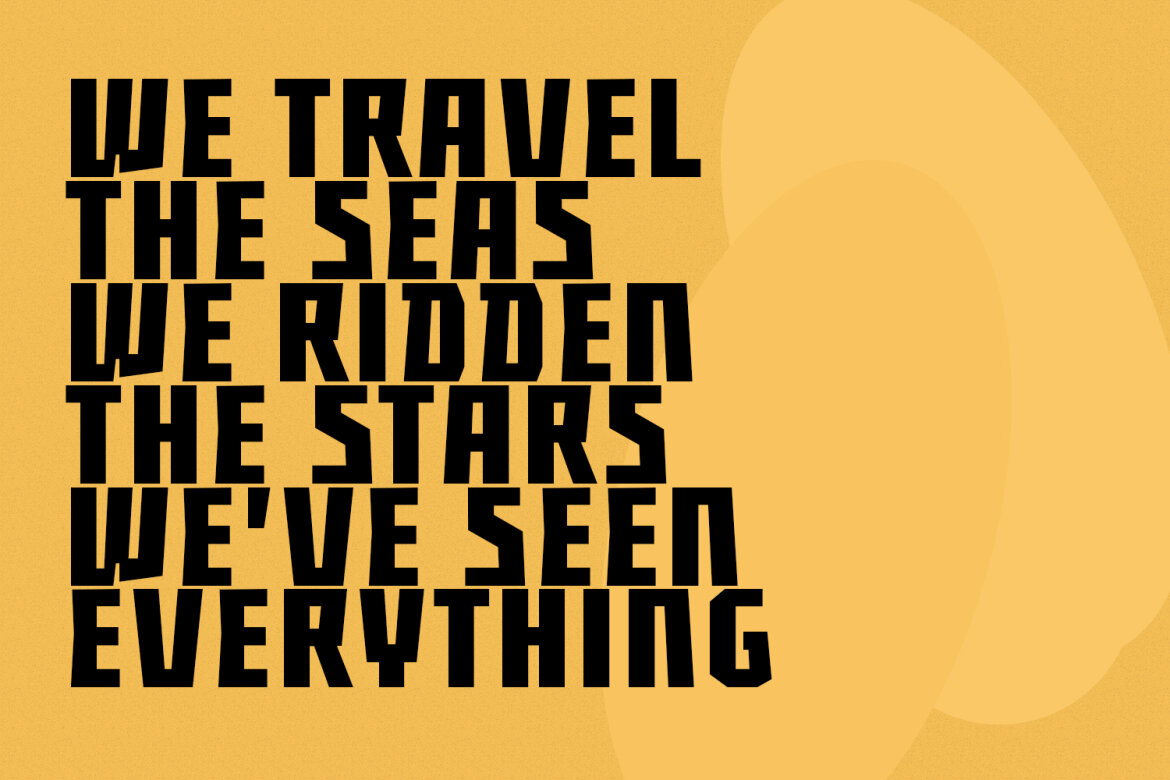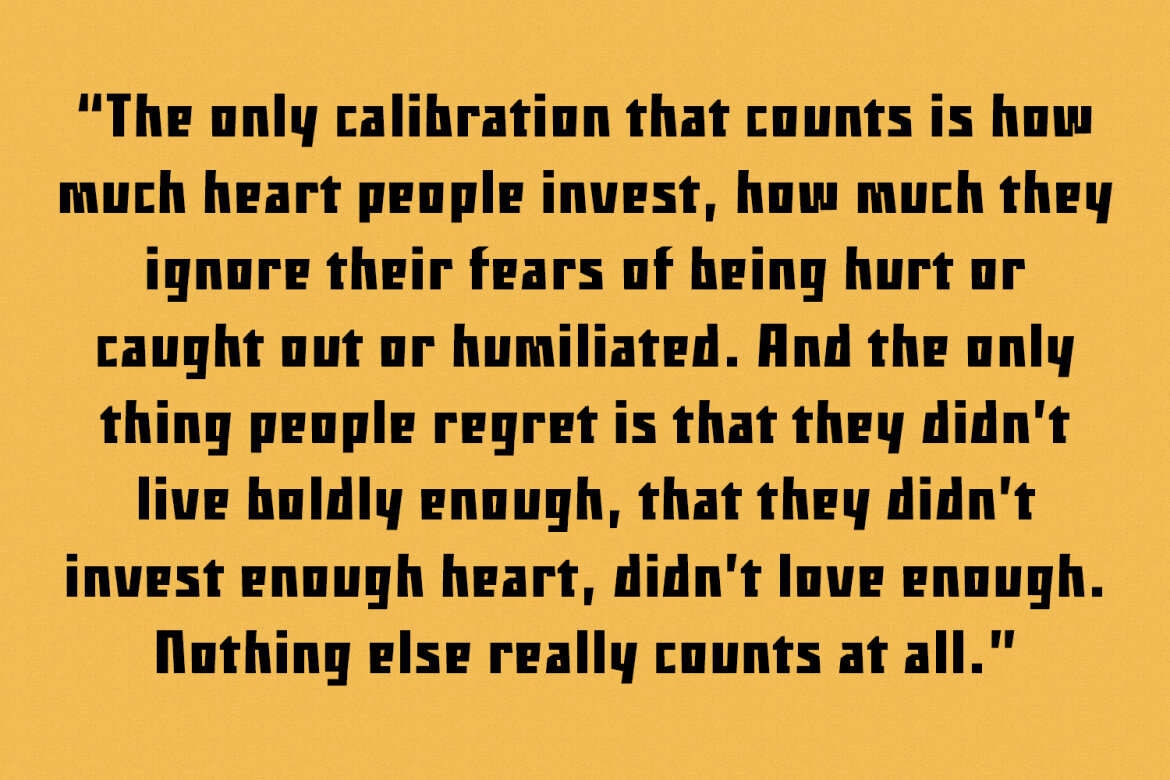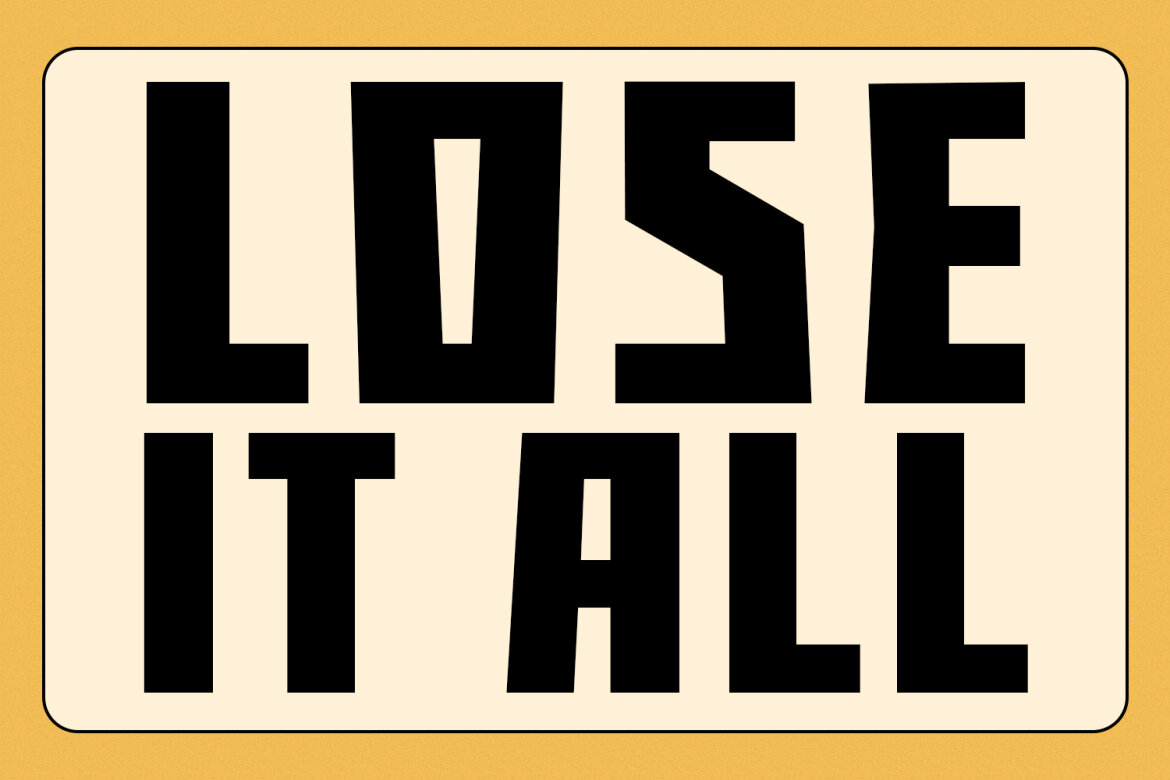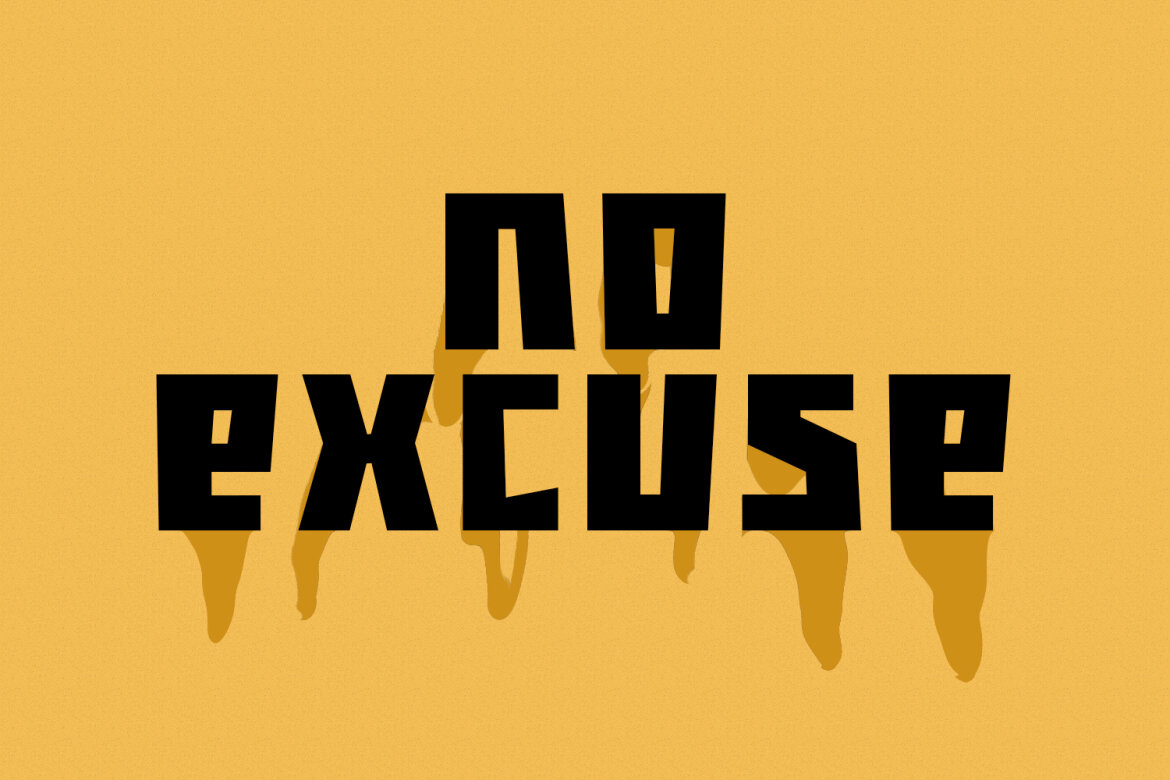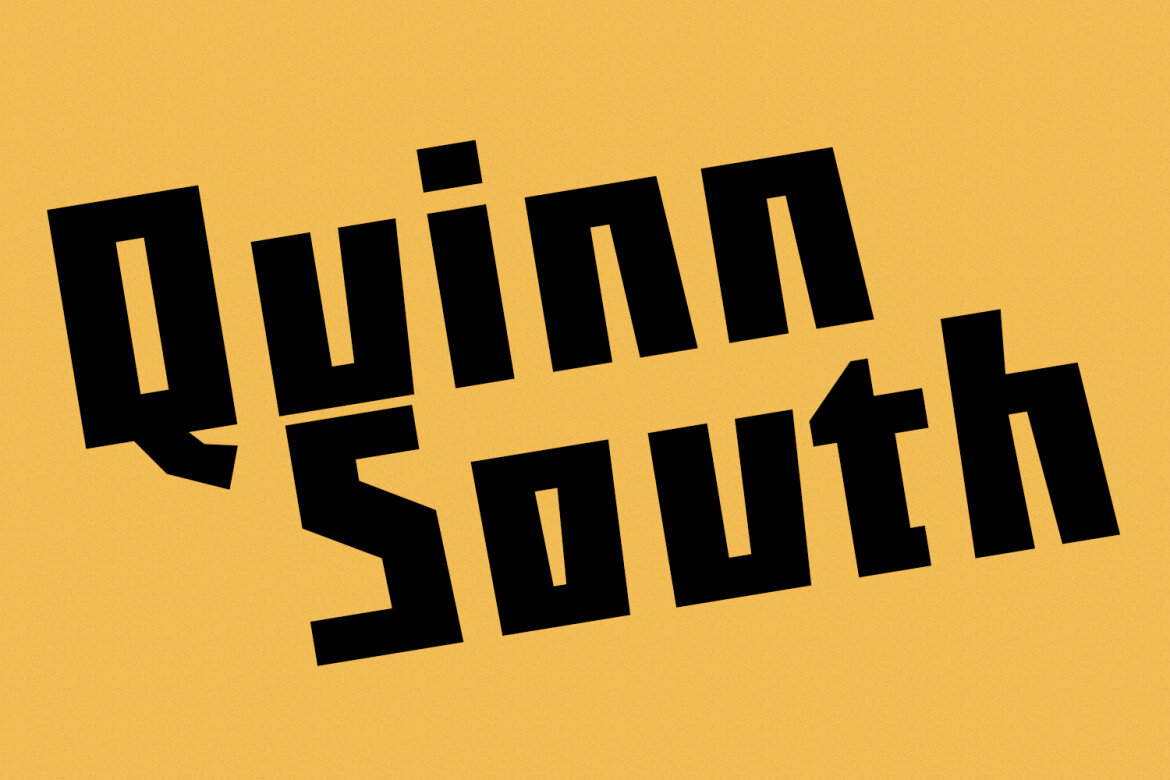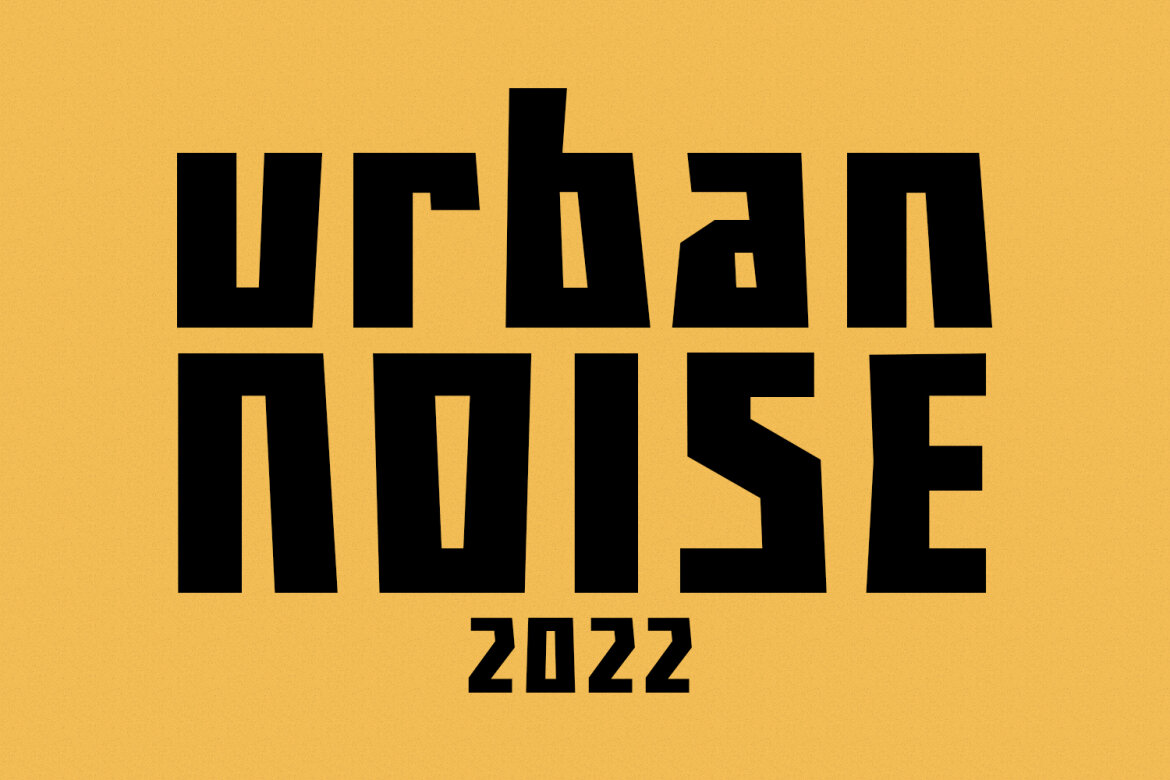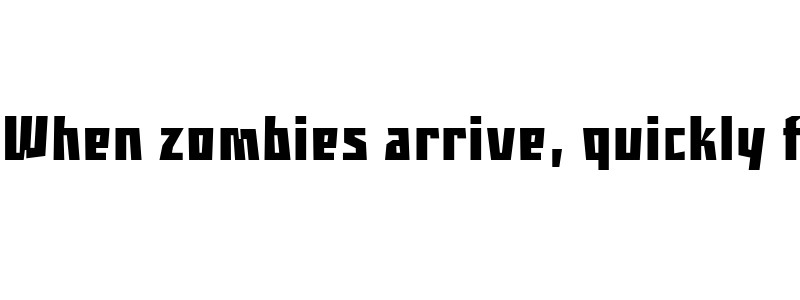
Missan Bold FREE Display Font
Missan is a Decorative quirky display font. With bold contrast stroke, fun character with a bit of ligatures. To give you an extra creative work. Missan font support multilingual more than 100+ language. This font is good for logo design, Social media, Movie Titles, Books Titles, a short text even a long text letter and good for your secondary text font with Script or serif. Make a stunning work with Missan font.